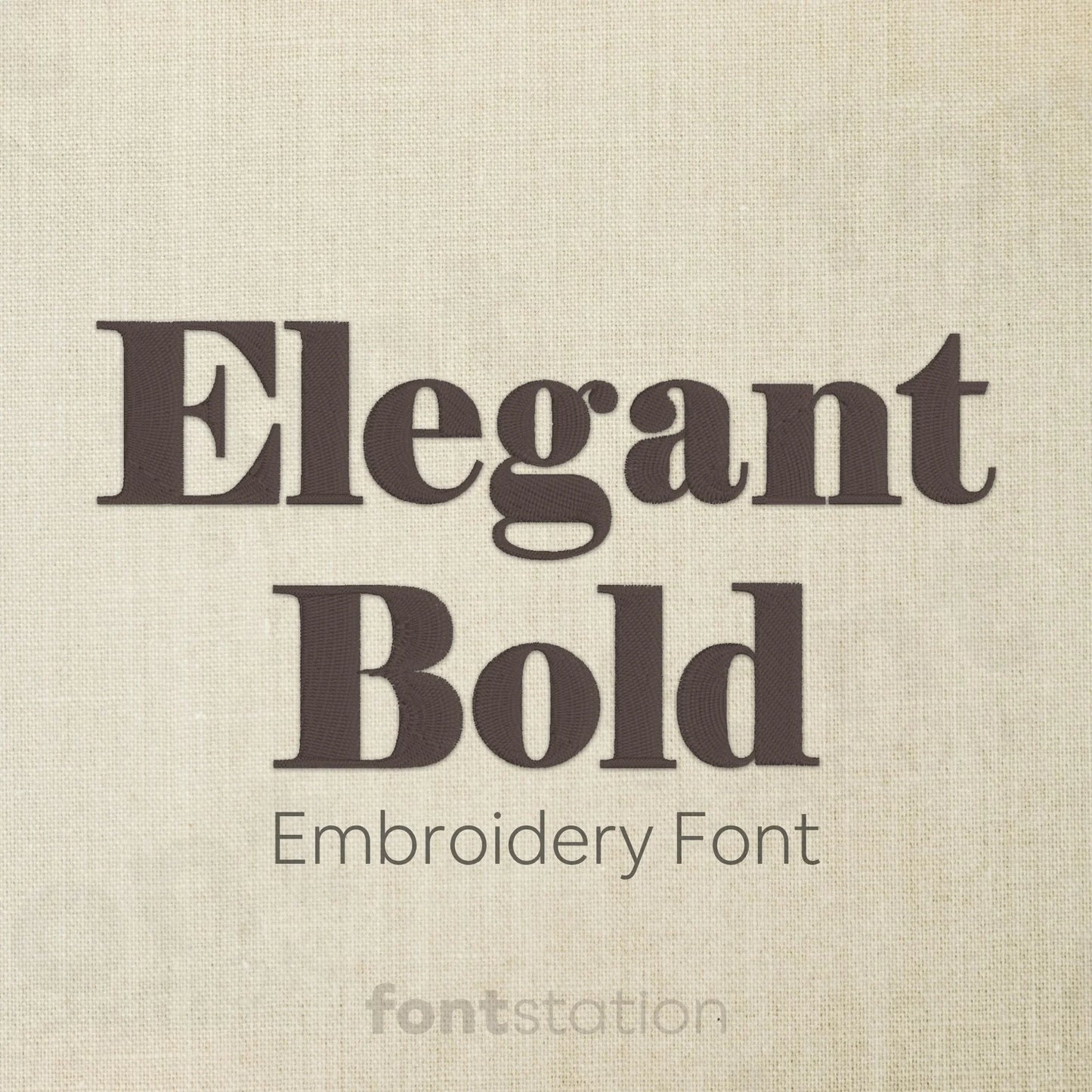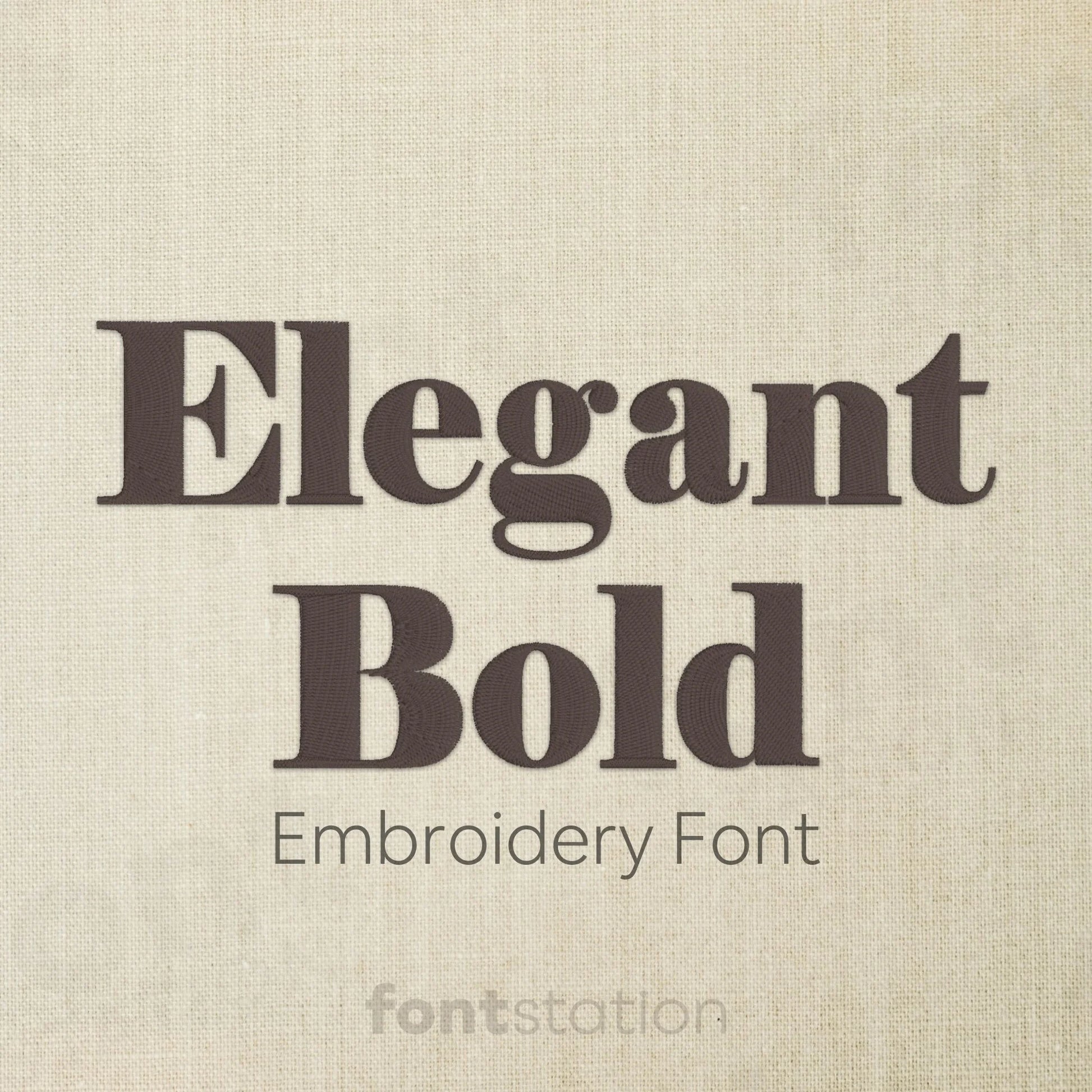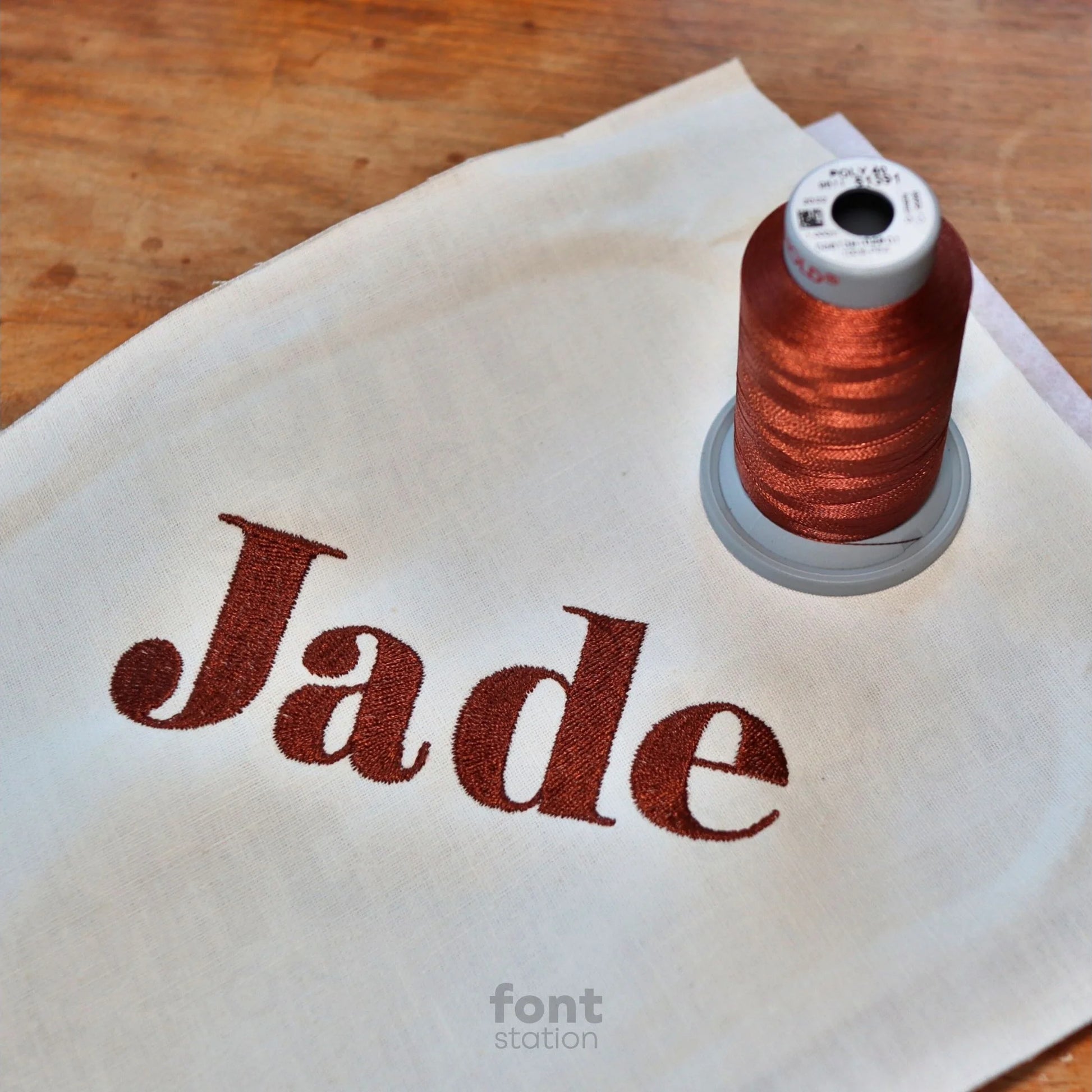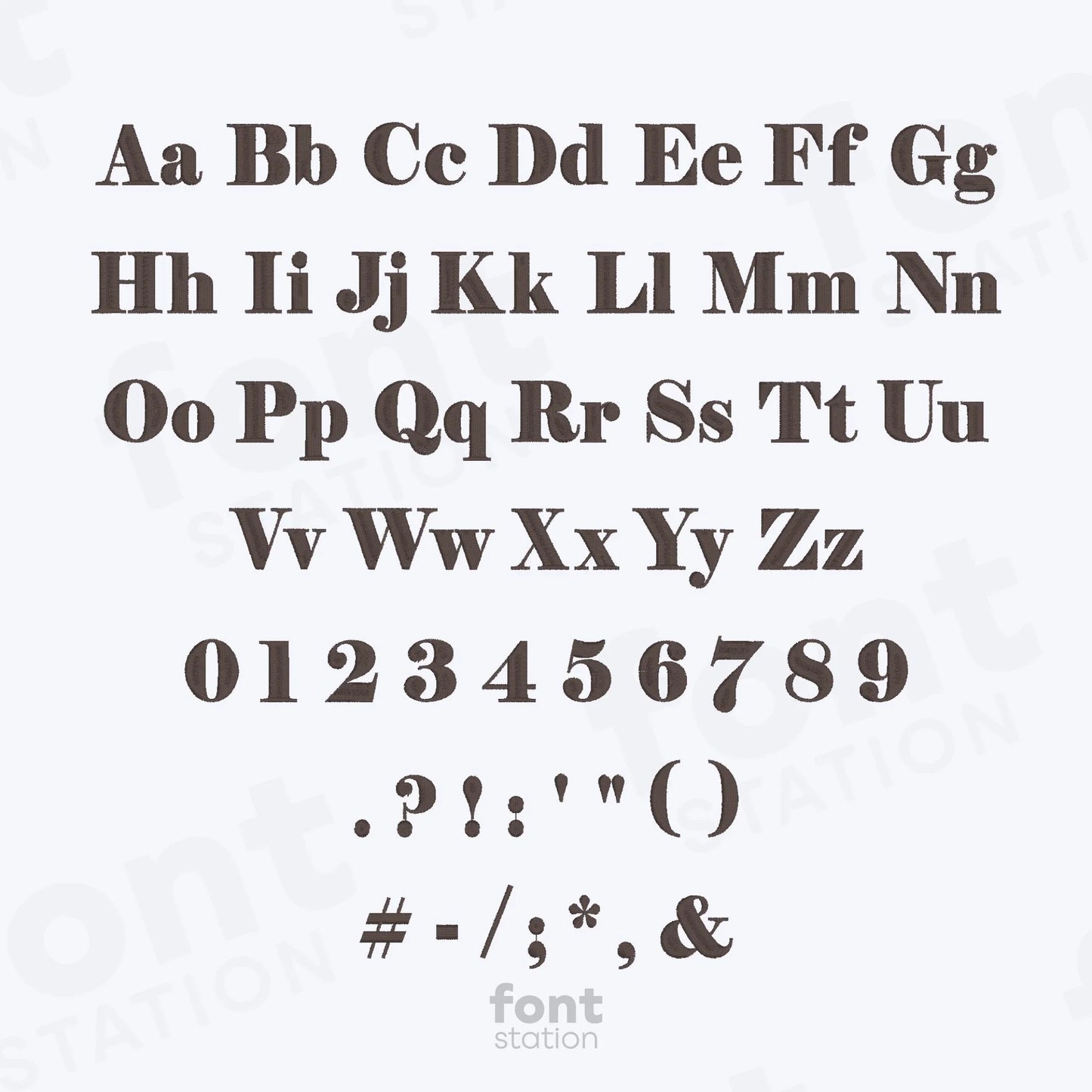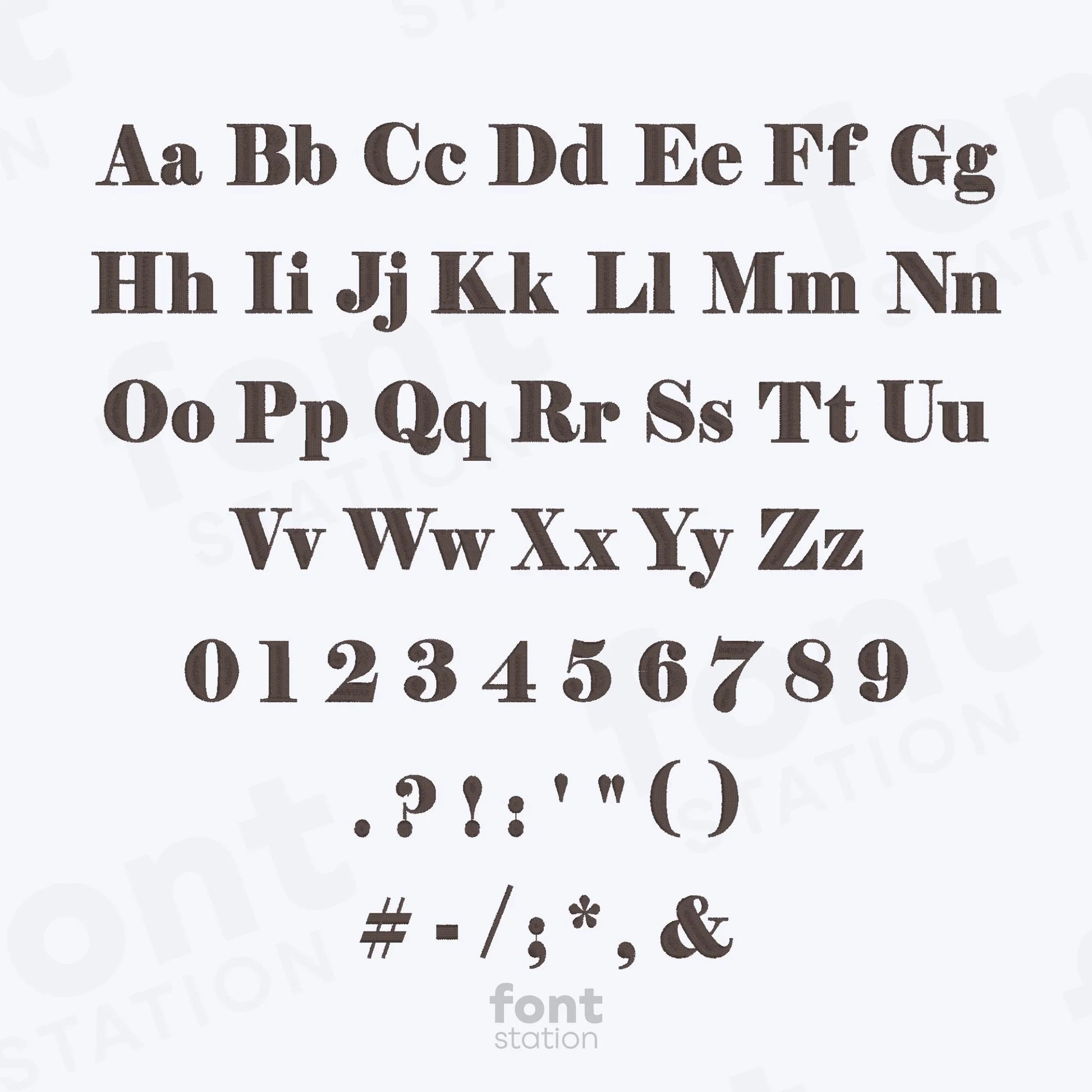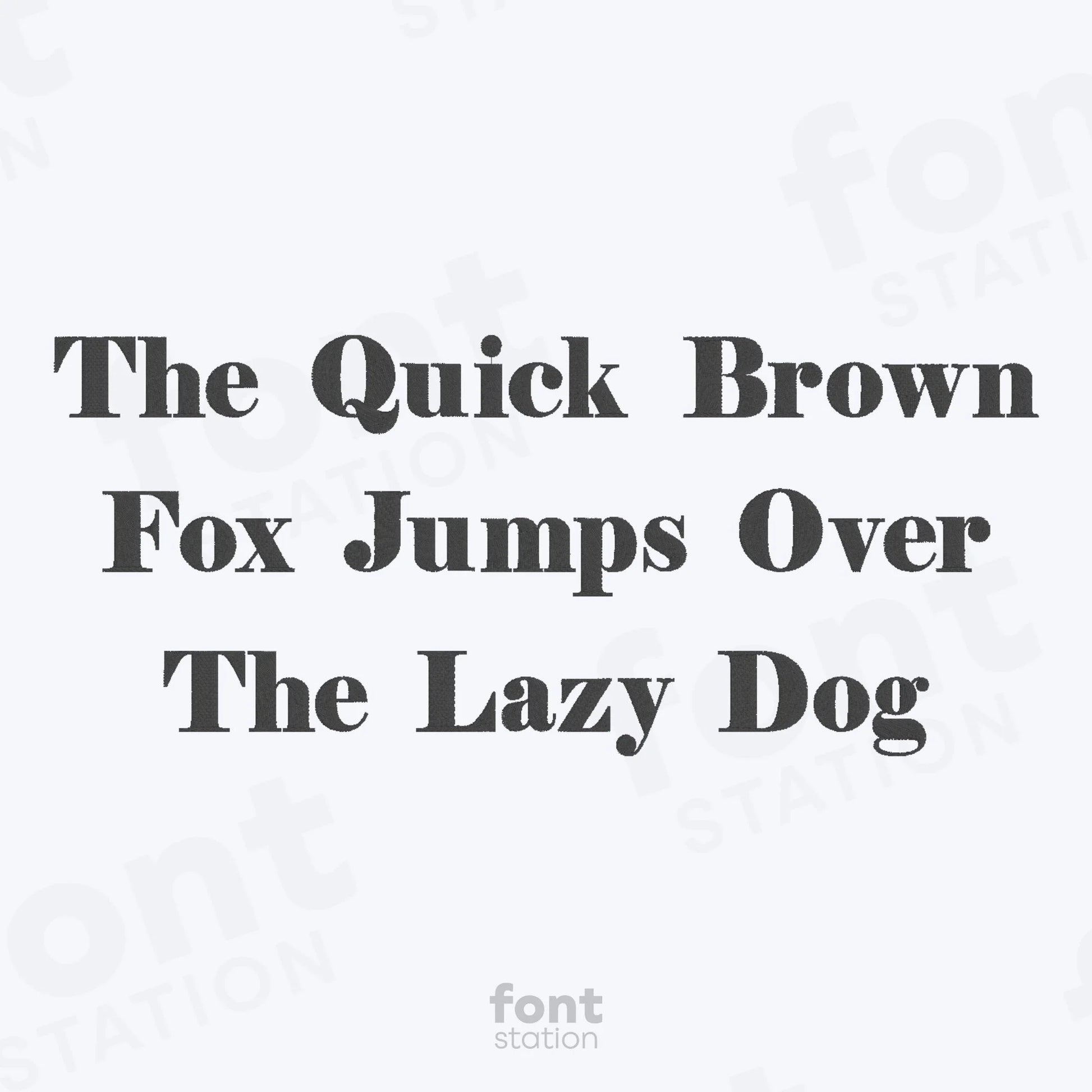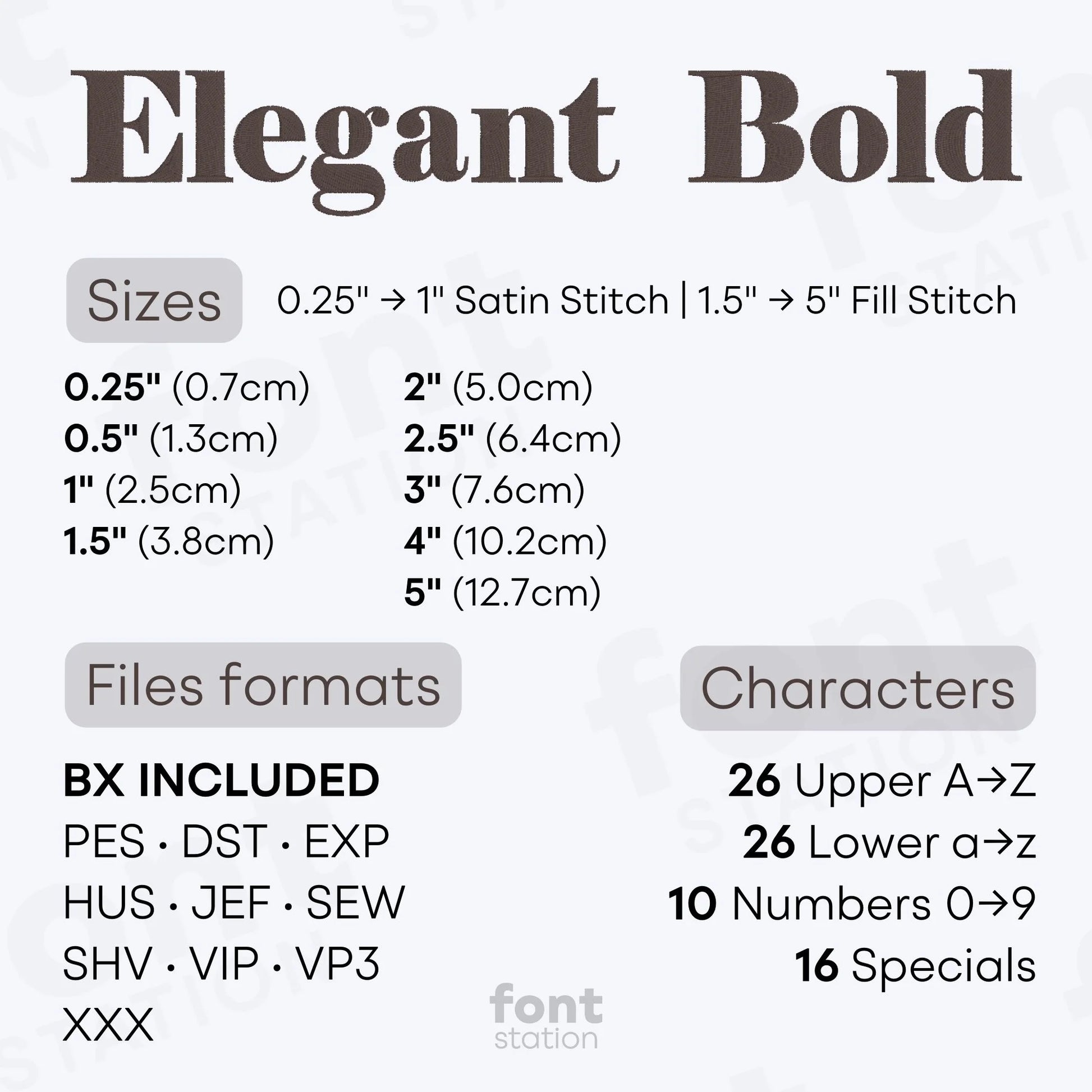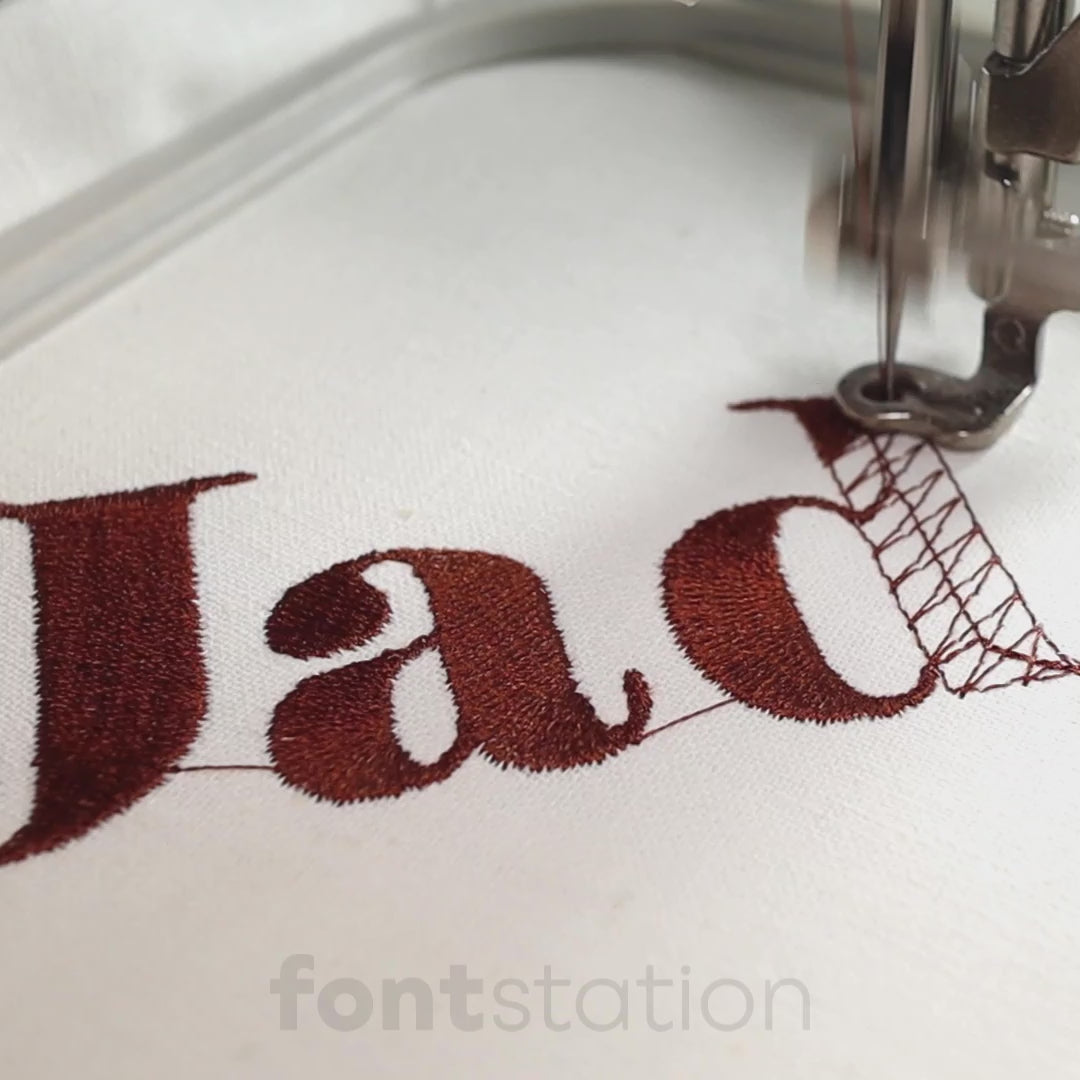
Elegant Bold Embroidery Font
Meet our Elegant Bold embroidery font, a vintage serif alphabet designed to stitch beautifully on any embroidery machine. These bold letters add timeless charm to your projects and designs, perfect for monograms, gifts, and custom creations.
About the Elegant Bold Embroidery Font
The Elegant Bold embroidery font brings timeless serif style to your machine embroidery projects.
This serif embroidery alphabet features clean lines and a vintage-inspired elegance, making it perfect for monograms, custom gifts, and sophisticated designs. Whether you're personalizing towels, bags, or decor, the Elegant Bold embroidery font stitches out beautifully on any compatible machine. Delivered in BX, PES, DST, JEF, EXP, HUS, and VP3 formats, these machine embroidery letters are professionally digitized for smooth, bold results every time.